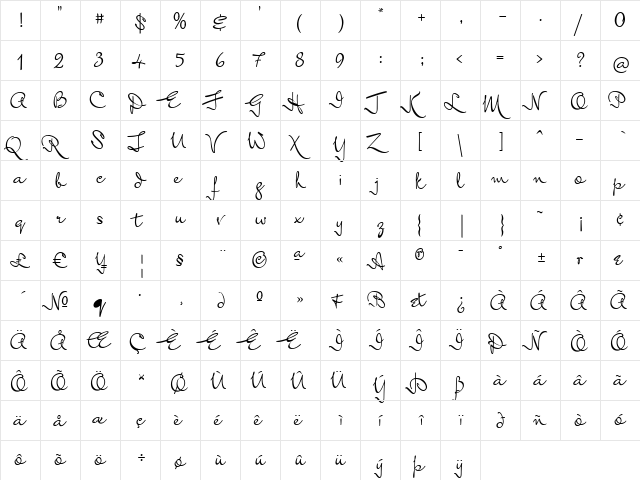
Mr Keningbeck Regular
Design Context for Mr Keningbeck Typeface
Mr Keningbeck is a composed and adaptable typeface that performs quietly and consistently across a wide range of design contexts.